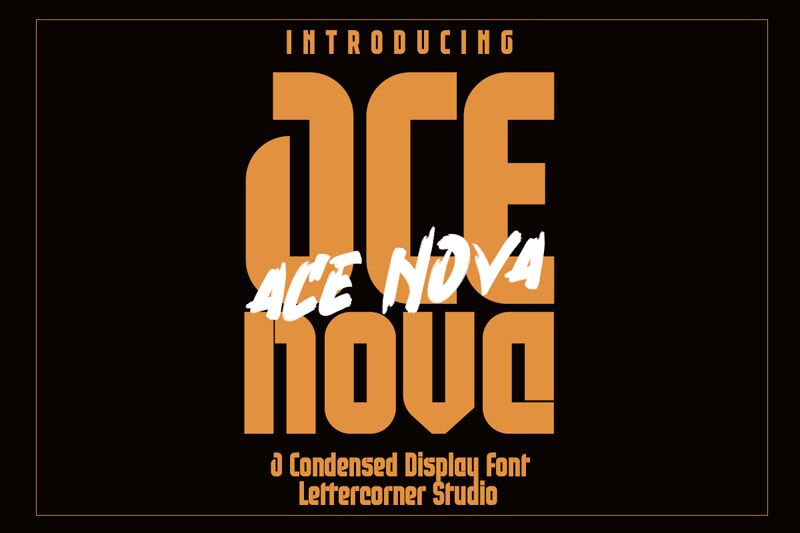
Ace Nova Brush font family by Mocha Frappuccino is a free brush font with 2 font styles. Its striking presence stems from heavy brush strokes with sharp endings which is defined by the author as futuristic and modern. The font is designed within a compact geometric friendly look and feel. It would certainly appeal to those looking to add an aesthetic finish to any project they’re working on.
Ideal for advertisements, social media posts, videos, magazines covers, labels, or greeting cards. Ace Nova Brush is also great for product packaging, t-shirt designs, and branding.